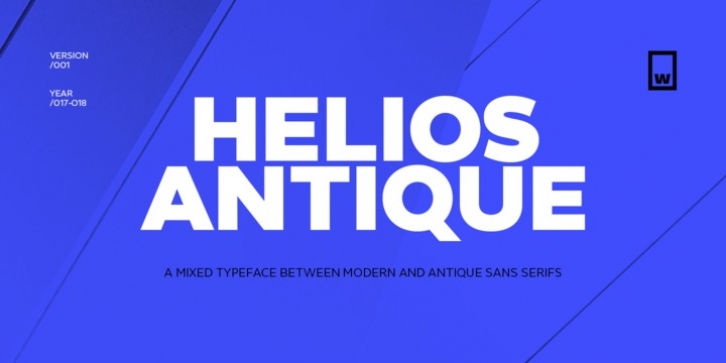
Helios Antique downloadDesigner: Felipe Sanzana,
Publisher: W Foundry
Helios type family is the result of a mixture between the early sans serif and the modern trends of our era. Its rational structure is subtly wider than the majority of the first sans, generating a higher impact in its uses. All the typeface terminals are more open in order to balance better the whites and blacks of Helios, and where the strokes meet it has a deeper contrast giving more legibility to the reader. Furthermore, in some letters it is possible to see some prominent features such as the leg of the “R” and the tail of the “Q”, which are particular gestures that identify this type family.